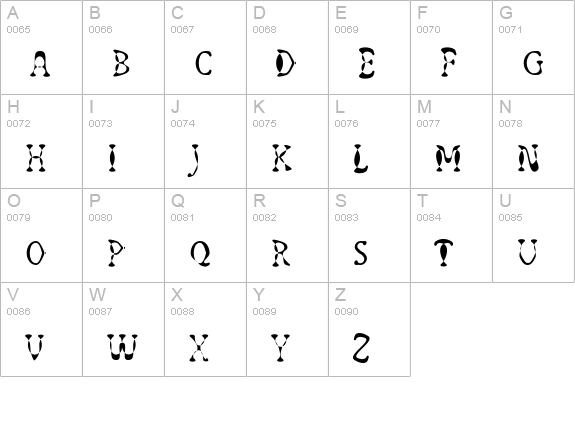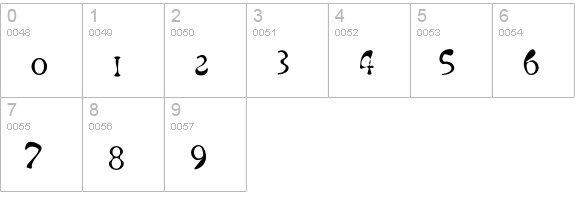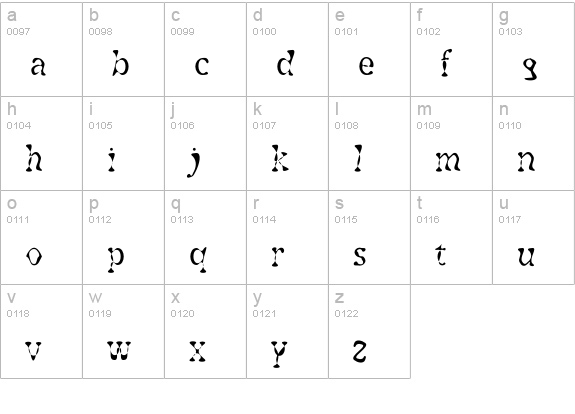
Chengalulu Font Details
Chengalulu font is a unique and elegant typeface that exudes sophistication and charm. With its fluid curves and modern aesthetic, this font is perfect for a wide range of design projects, from branding and advertising to web design and print materials. The versatility of Chengalulu font makes it a must-have for any designer looking to add a touch of class to their work. What's even better is that Chengalulu font is available for free download at FontsMarket.com. This means that you can easily access this stunning font and use it in your projects without any cost. Don't miss out on the opportunity to elevate your designs with Chengalulu font - download it today and see the difference it can make!